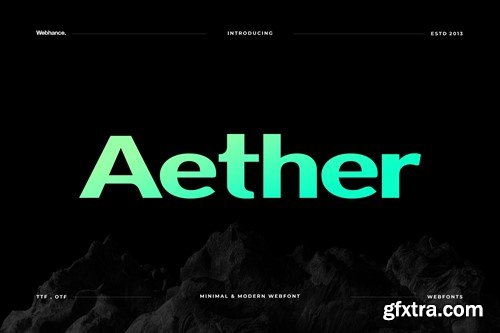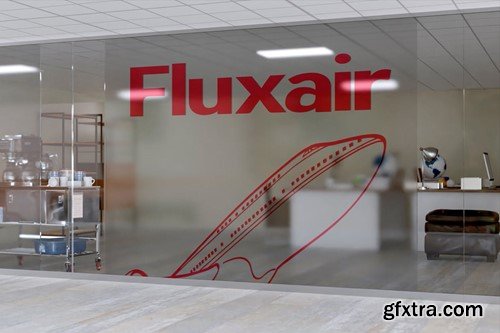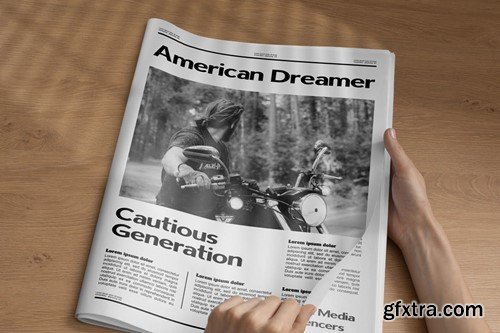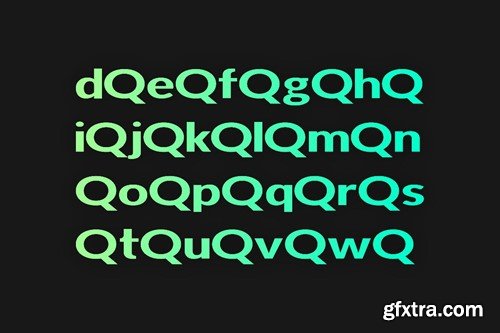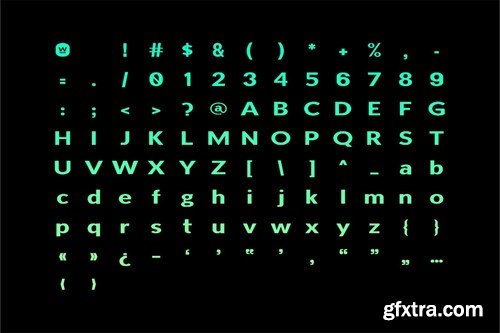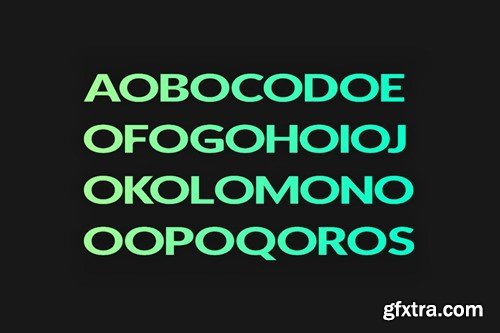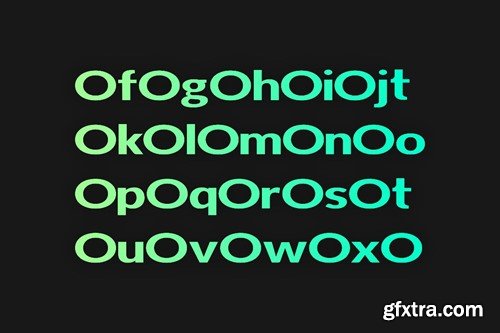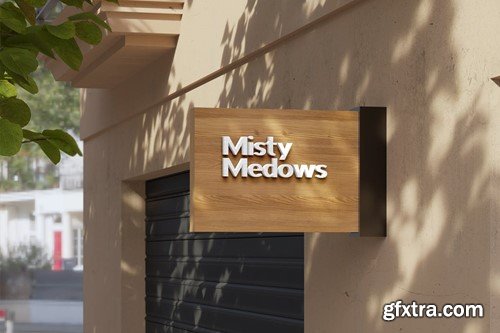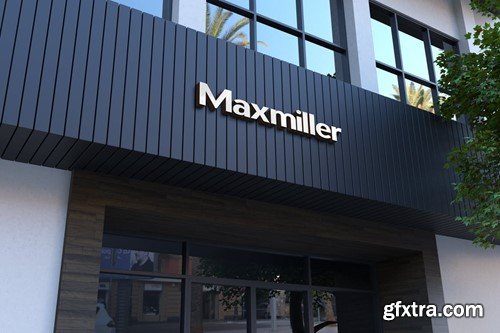
阿法特 - 现代无衬线字体 AAKVEFK
Aether - Modern Sans-Serif Typeface Introducing Aether Modern Sans Font, your ultimate tool for minimalist modern typography and branding endeavours. With comprehensive coverage, including numbers, uppercase, lowercase, and punctuation, Aether offers versatility and elegance in every character. Crafted with precision, Aether embodies the essence of contemporary design, blending clean lines with subtle curves to deliver a timeless aesthetic. Whether you're creating sleek logos, minimalist websites, or refined print materials, this font is your go-to solution. Enhance your projects with Aether's seamless integration into any design, adding a touch of sophistication and professionalism. Experience the seamless synergy of minimalism and modernity with Aether Modern Sans Font, where every character speaks volumes of elegance and style. The pack includes OTF, TTF and Web Fonts (all EOT, TTF, WOFF included).